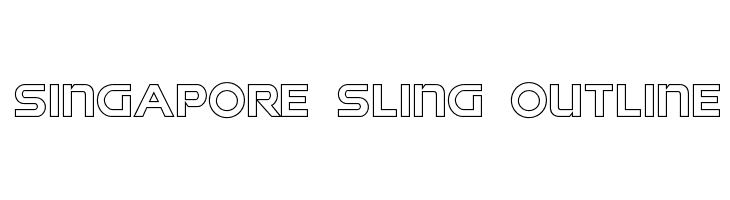
• SINGAPOLENG regular schriftart
( Linafis Studio - Ahmad Fashihullisan )
A bold, modern font with high contrast and a slightly condensed style.
• Singapore schriftart
A bold, distressed font with a grunge effect and rugged appearance.
• Singapore schriftart
A bold, playful, and quirky decorative font with high contrast and artistic flair.
• Singapore Landscape schriftart
A sophisticated script font with elegant, flowing strokes and artistic flourishes.
• Singapore Sling schriftart
A bold, geometric font with a modern, futuristic style.
• Singapore Sling 3D schriftart
A bold, geometric font with a 3D effect and modern aesthetic.
• Singapore Sling 3D Italic schriftart
A bold, 3D italic font with a futuristic and dynamic design.
• Singapore Sling 3D Italic schriftart
A bold, 3D italic font with a futuristic and dynamic style.
• Singapore Sling Bold schriftart
A bold, geometric font with a modern, futuristic style.
• Singapore Sling Bold Italic schriftart
A bold, italicized font with a modern, dynamic style and angular cuts.